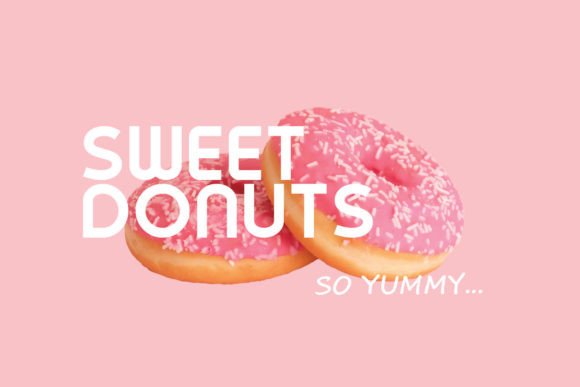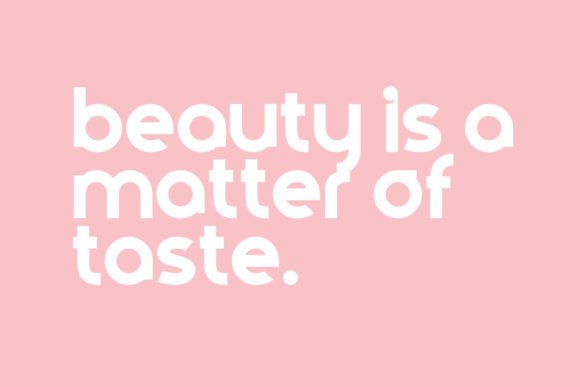
Cocota Font: The Ultimate Display Font for Friendly and Engaging Designs
In the world of typography, fonts play a crucial role in conveying emotions and setting the tone for designs. If you’re a designer, crafter, or digital artist looking for a modern and friendly display font, look no further than Cocota Font. This versatile font is designed to make your creations stand out, whether you’re working on crafts, digital designs, presentations, or greeting cards.
What is Cocota Font?
Cocota Font is a modern, easy-to-read display font that exudes impeccable friendliness. Its clean lines, rounded edges, and balanced proportions make it perfect for a wide range of applications. The font’s friendly demeanor is sure to capture the attention of your audience and leave a lasting impression.
Key Features of Cocota Font
- Modern and Fresh Design: Cocota Font boasts a modern design that is both stylish and approachable. Its unique character set and elegant lines make it perfect for designs that require a touch of sophistication.
- Easy to Read: The font’s clear and legible design ensures that your message is conveyed effectively, even at small sizes. This makes it ideal for digital designs, presentations, and crafts.
- Versatile: Cocota Font is suitable for a wide range of applications, from greeting cards and invitations to digital designs, presentations, and more.
- Impeccable Friendliness: The font’s friendly demeanor makes it perfect for designs that require a personal touch. Whether you’re creating a birthday card or a social media graphic, Cocota Font is sure to convey your message with warmth and approachability.
Use Cases for Cocota Font
Cocota Font is an incredibly versatile font that can be used in a variety of contexts. Here are some use cases to get you started:
- Crafts: Add a personal touch to your handmade crafts, such as knitted items, jewelry, or ceramics, with Cocota Font.
- Digital Design: Use Cocota Font in your digital designs, such as social media graphics, blog posts, and email newsletters, to add a touch of friendliness and approachability.
- Presentations: Make your presentations more engaging with Cocota Font. Its clear and legible design ensures that your message is conveyed effectively, even in complex slides.
- Greeting Cards: Create beautiful and personalized greeting cards with Cocota Font. Its friendly demeanor makes it perfect for birthdays, holidays, and special occasions.
Why Choose Cocota Font?
With so many fonts available, why choose Cocota Font? Here are a few reasons why Cocota Font stands out:
- Unique Character Set: Cocota Font has a unique character set that sets it apart from other fonts. Its elegant lines and balanced proportions make it perfect for designs that require a touch of sophistication.
- Easy to Use: Cocota Font is easy to use and pairs well with a variety of other fonts. Its clear and legible design ensures that your message is conveyed effectively.
- High-Quality Design: Cocota Font is designed to high standards, ensuring that it looks great in any context. Whether you’re using it for digital designs or print materials, Cocota Font is sure to impress.
In conclusion, Cocota Font is a modern, easy-to-read display font that conveys impeccable friendliness. Its versatile design makes it perfect for a wide range of applications, from crafts and digital designs to presentations and greeting cards. With its unique character set, easy-to-use design, and high-quality construction, Cocota Font is sure to become your go-to font for all your design needs.